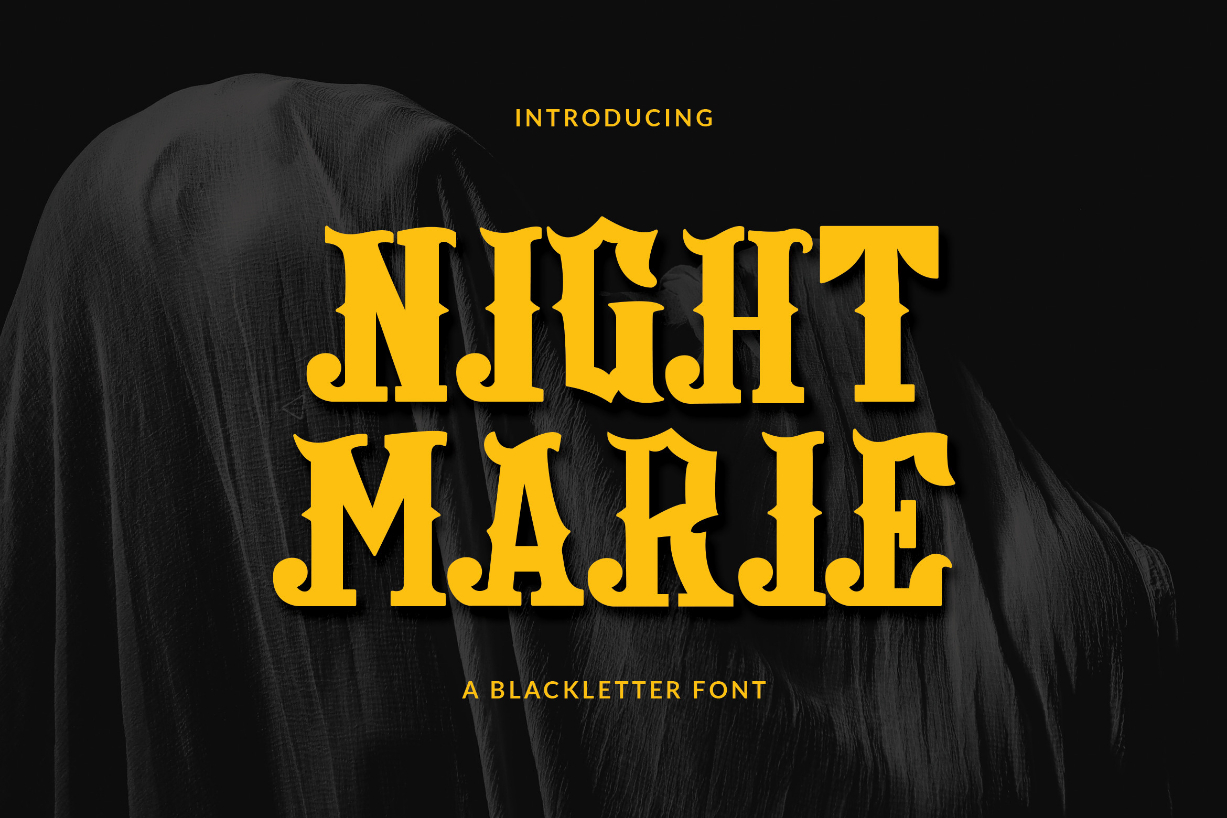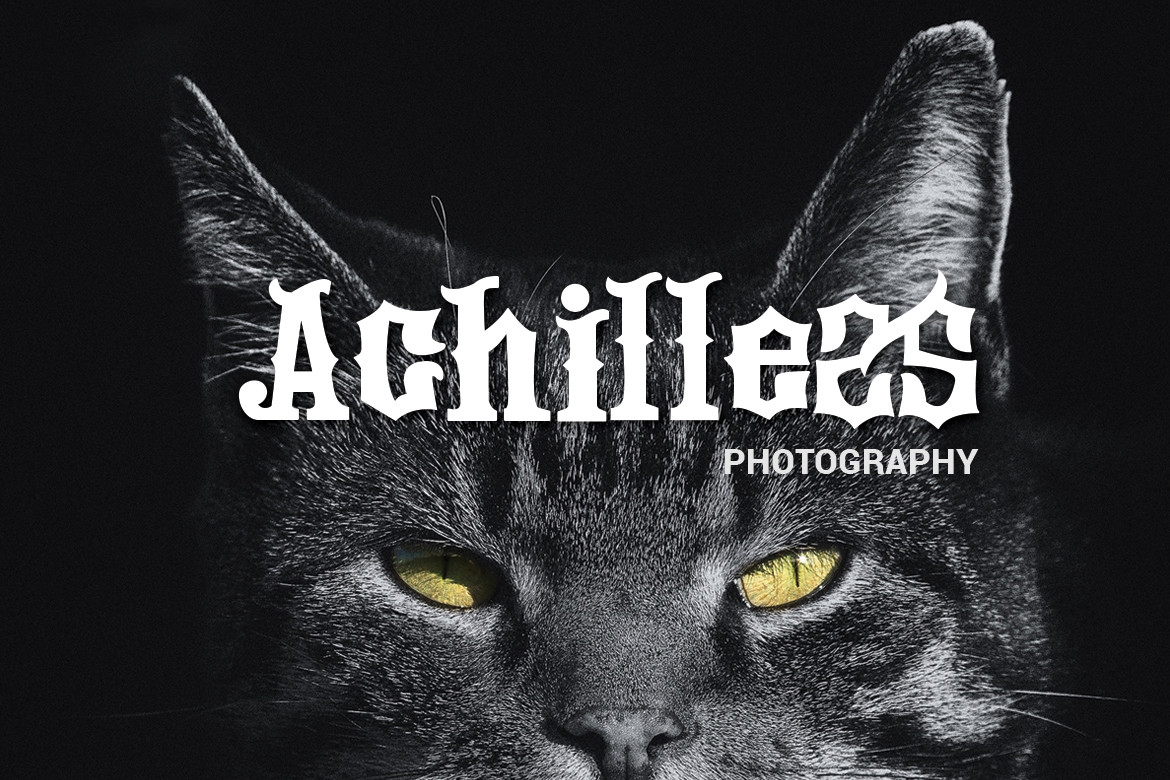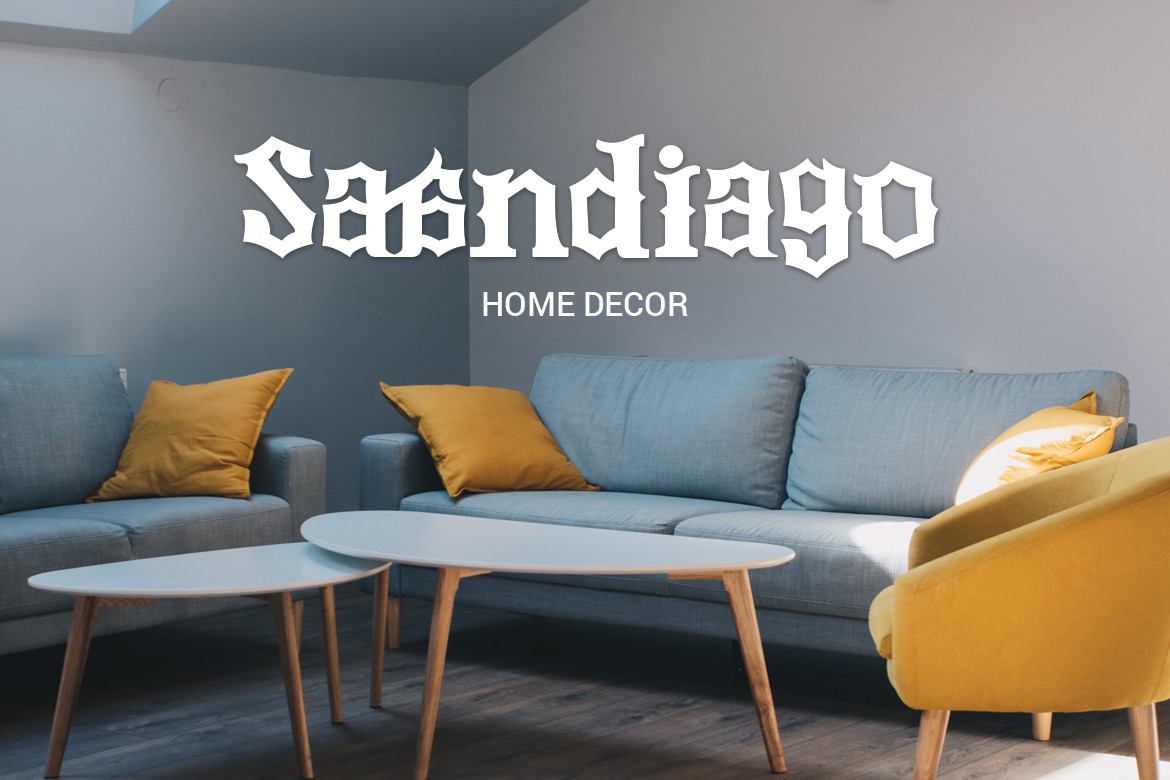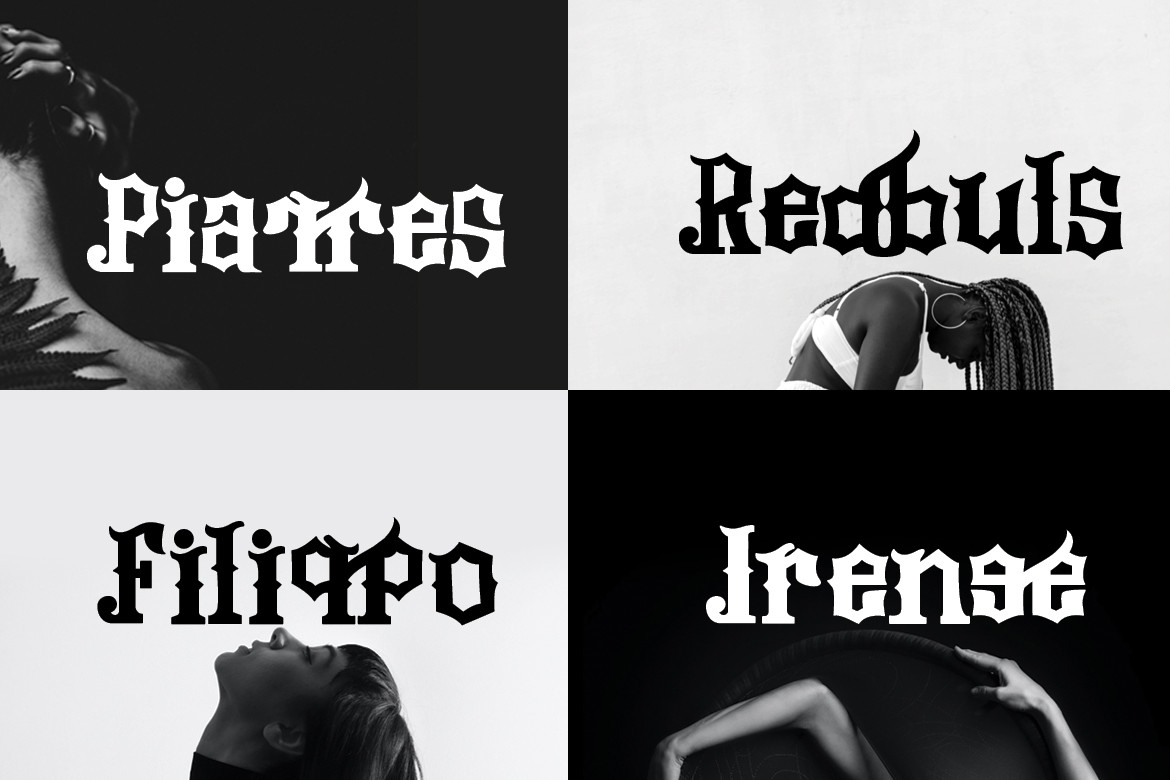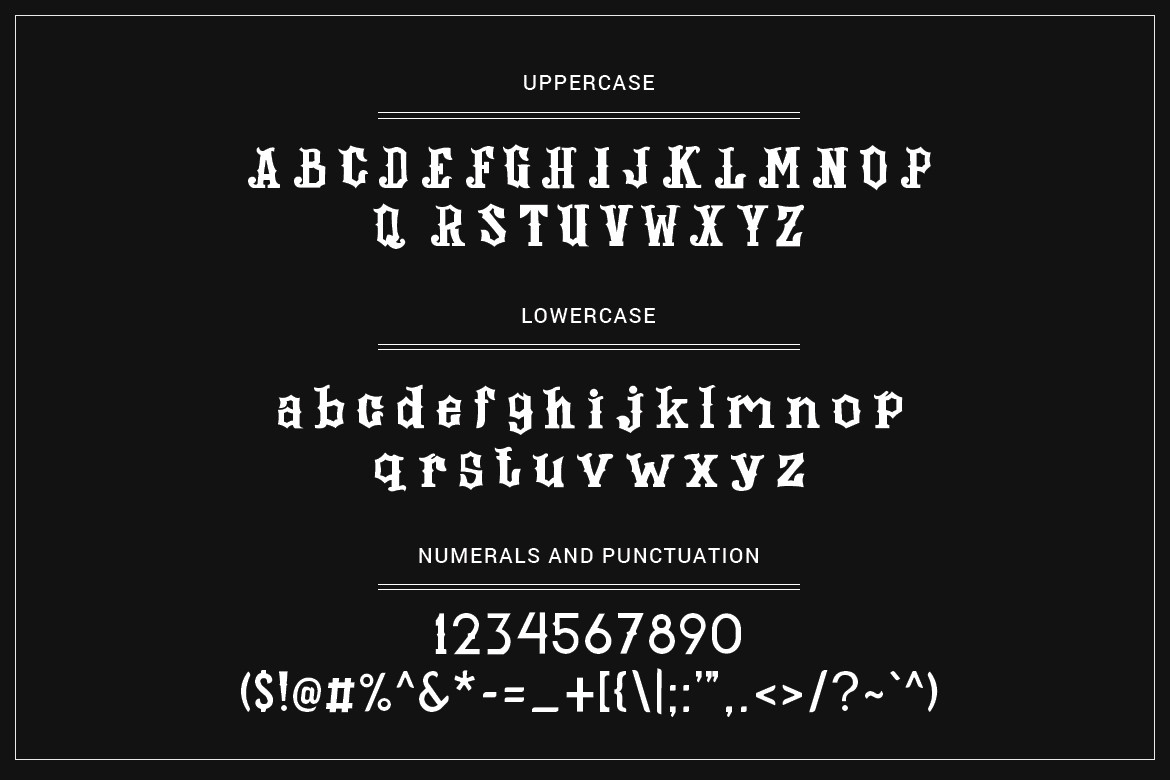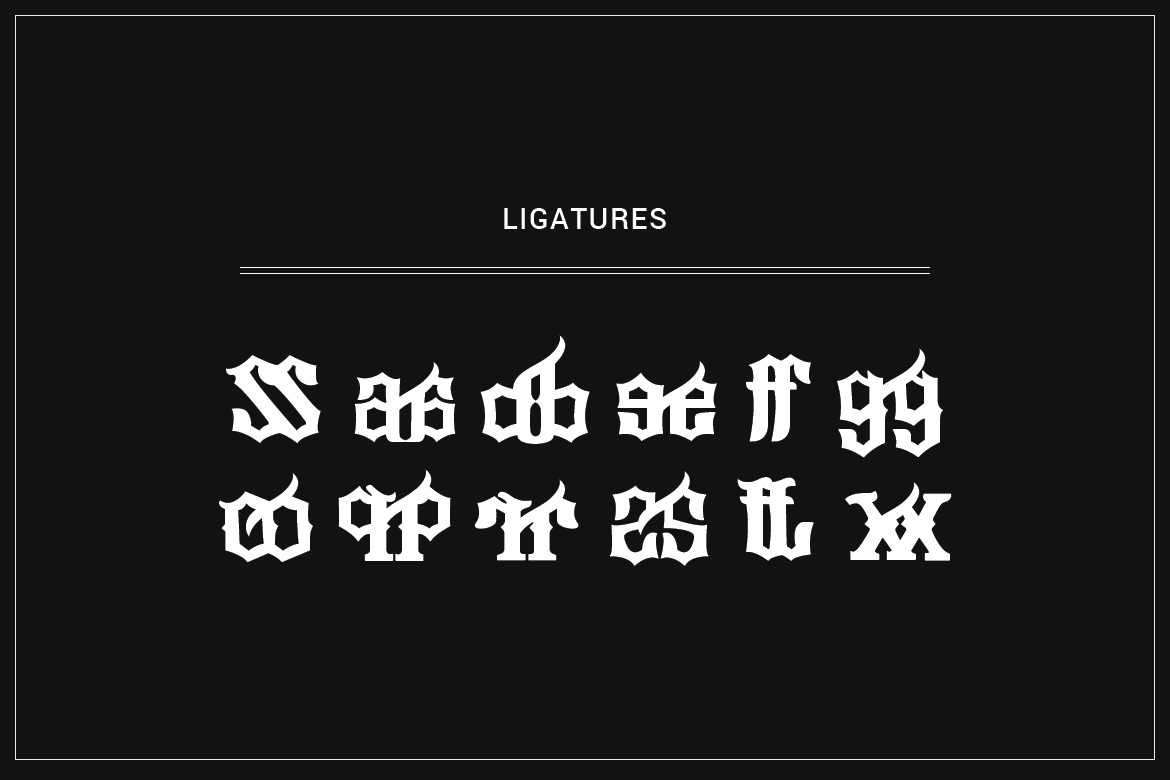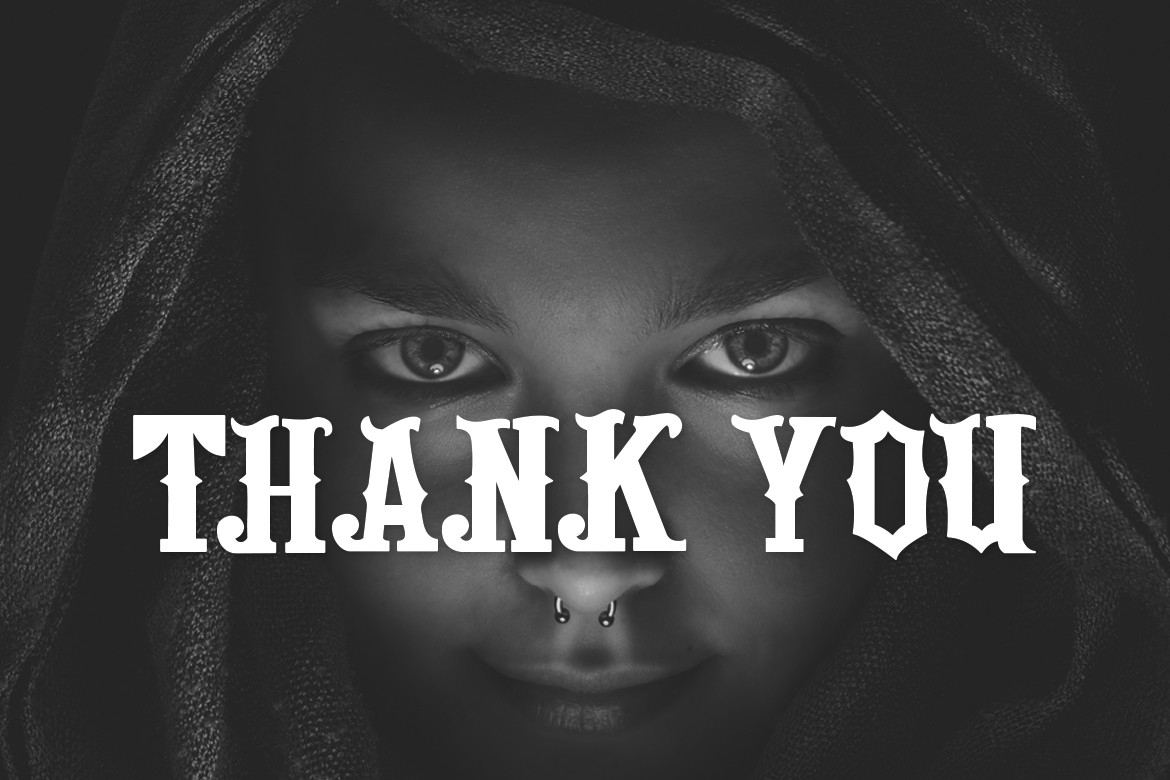
Night Marie Font
About Night Marie Font
Night Marie is a gothic styled blackletter font. Masterfully designed to become a true favorite, this font has the potential to bring each of your creative ideas to the highest level!